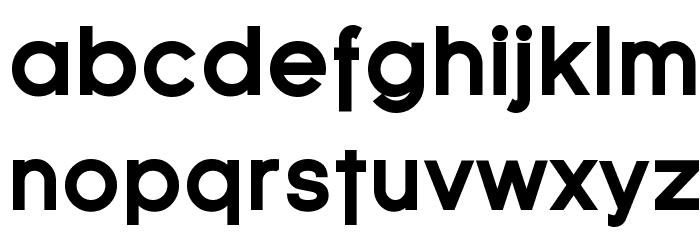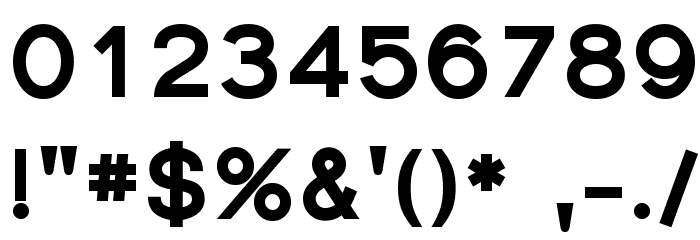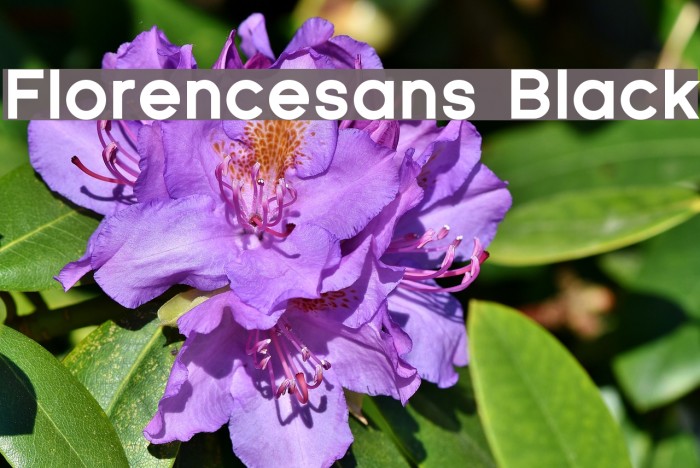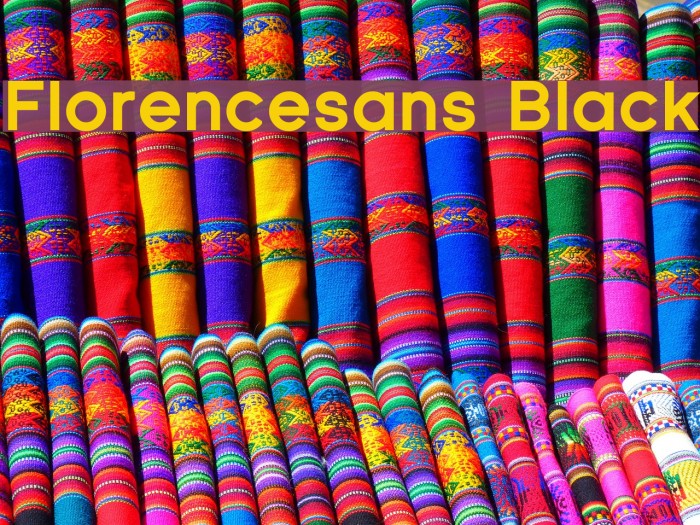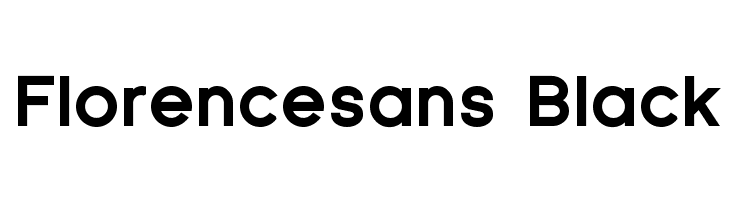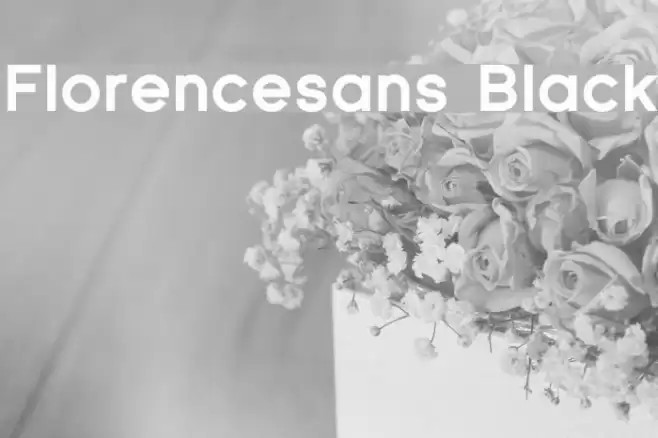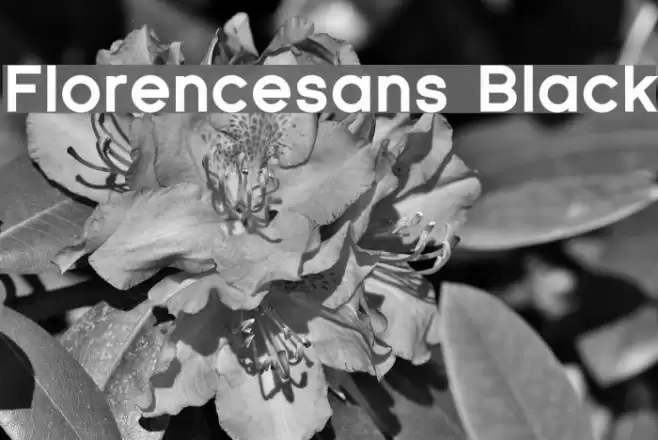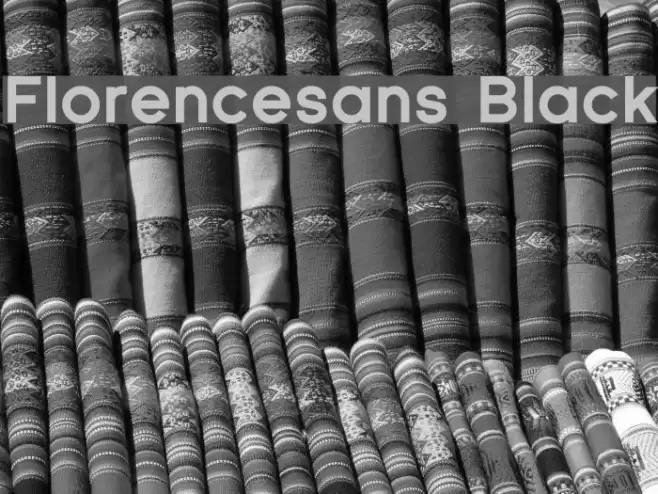
Florencesans Black Font
This font features a bold and modern sans-serif style, characterized by clean lines and a strong geometric structure. The uppercase and lowercase letters maintain a consistent weight, providing a uniform appearance across all characters. The numerals are clear and legible, matching the overall boldness of the alphabet. Special characters are well-defined, enhancing the font's versatility. Its simplicity and clarity make it suitable for a wide range of applications, from digital to print media.
A bold, modern sans-serif font with clean lines and geometric structure.
- Proposed Projects: Ideal for branding, advertising, headlines, and digital interfaces where clarity and impact are essential.
- Use Case: Headlines, Logos, Branding